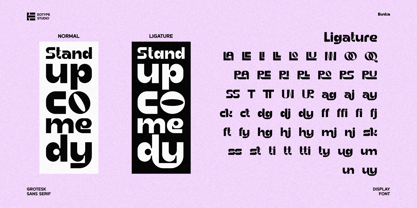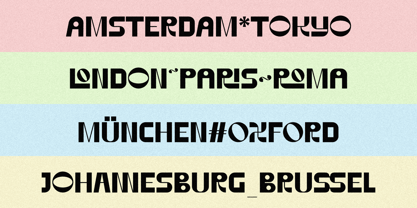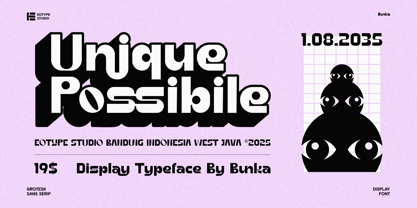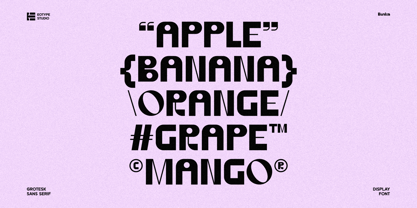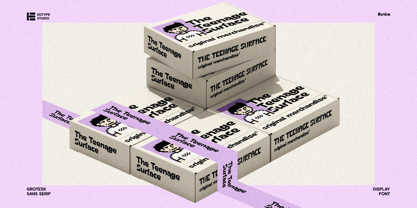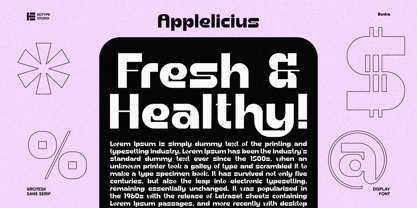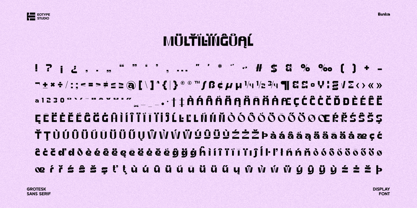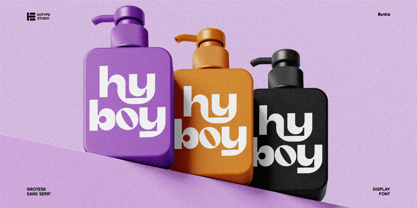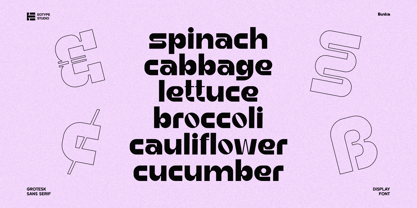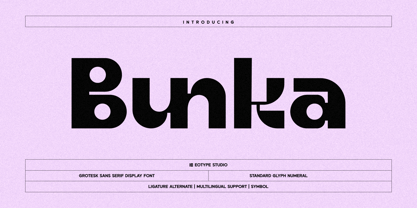
Bunka
by Eotype
The Bunka Font Family was designed by Fajar Ramadan and published by Eotype. Bunka contains 1 styles.
Introducing a Bunka typeface A high-contrast sans serif font with a touch of ink traps combines the elegance of sharp contrast with the functional and distinctive details of ink traps. These typefaces feature dramatic differences in stroke weight, where vertical strokes are significantly thicker than horizontal ones, creating a refined and striking look
The subtle ink traps small cutouts at the junctions of strokes are a functional design However, in modern digital typography, ink traps often serve as a stylistic choice, adding character and sharpness to the design.This type of sans serif is ideal for luxury branding, editorial headlines, and modern digital interfaces, where high contrast adds sophistication and the ink trap details bring a touch of uniqueness.